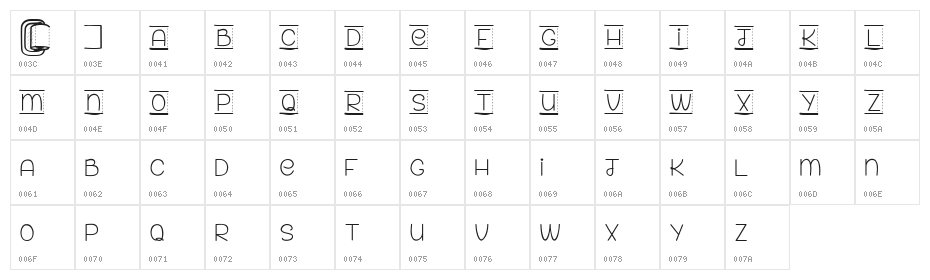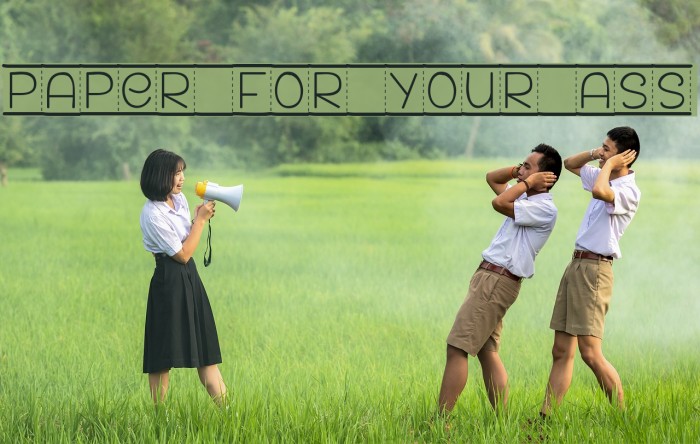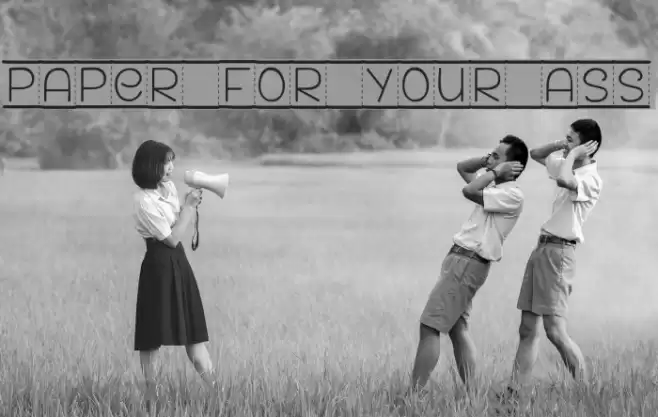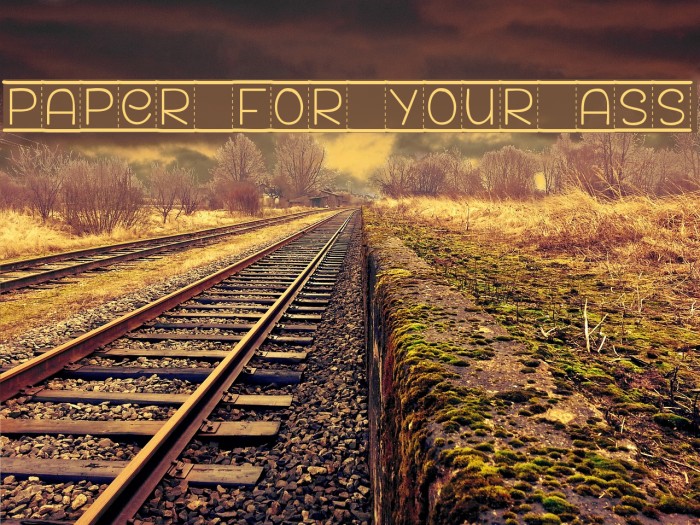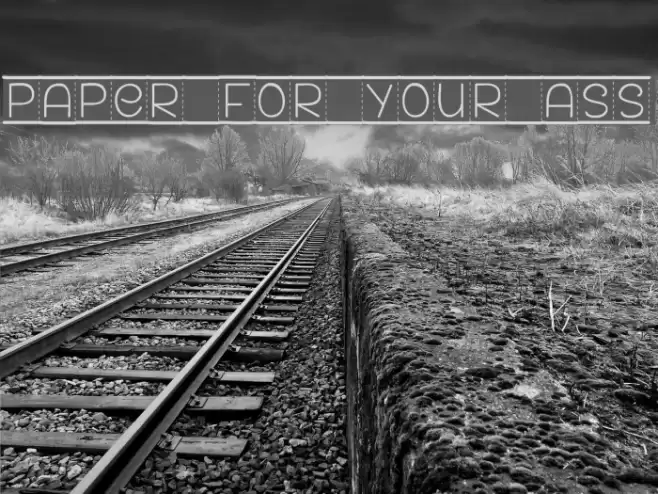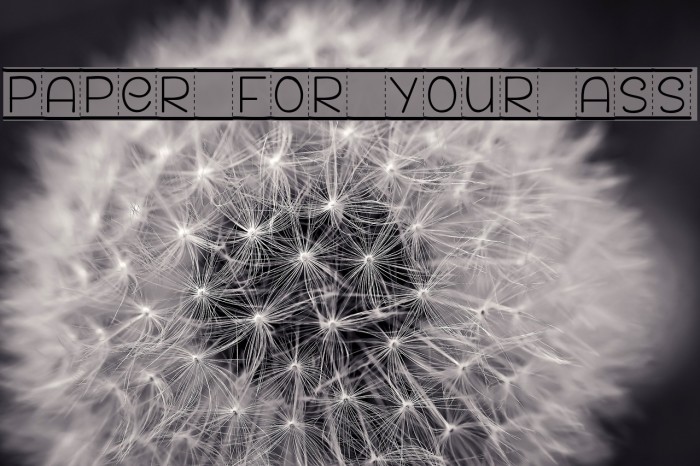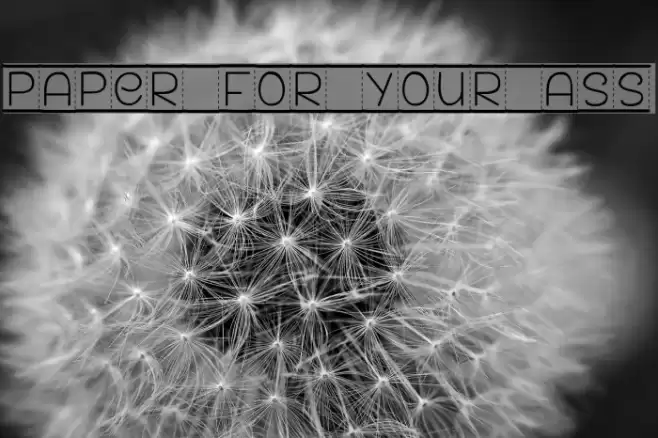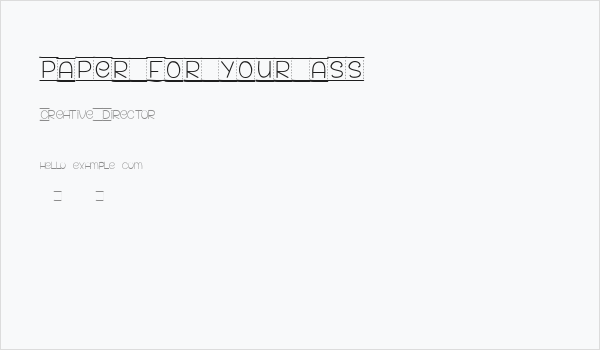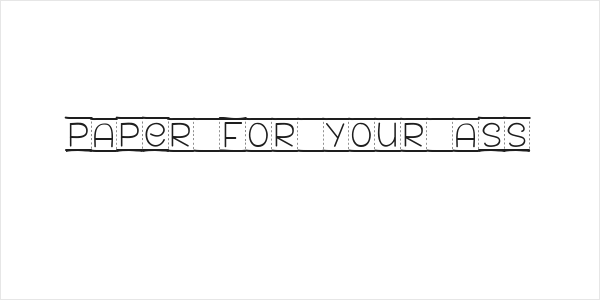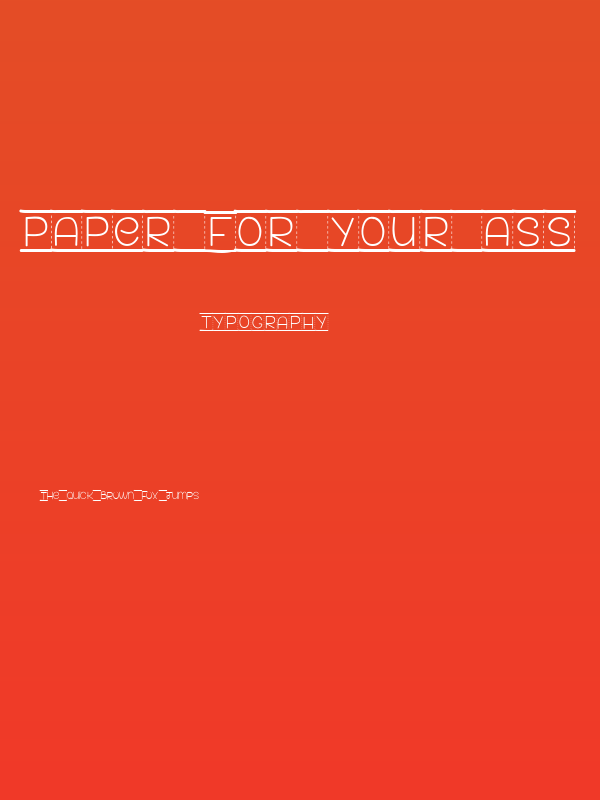
PAPER FOR YOUR ASS Font
PAPER FOR YOUR ASS Description
This playful and whimsical font features a unique blend of geometric shapes and hand-drawn elements. The uppercase letters are enclosed in square outlines, giving them a structured appearance, while the lowercase letters maintain a more freeform style. The strokes are consistent in width, providing a uniform look across all characters. The font's playful nature is emphasized by the rounded edges and slight variations in line curvature, making it ideal for creative and informal projects. The overall design is clean and modern, yet retains a touch of nostalgia with its handwritten feel.
| Overall Style | Playful, Modern |
| Proposed Projects | Ideal for children's books, educational materials, playful branding, and creative posters. |